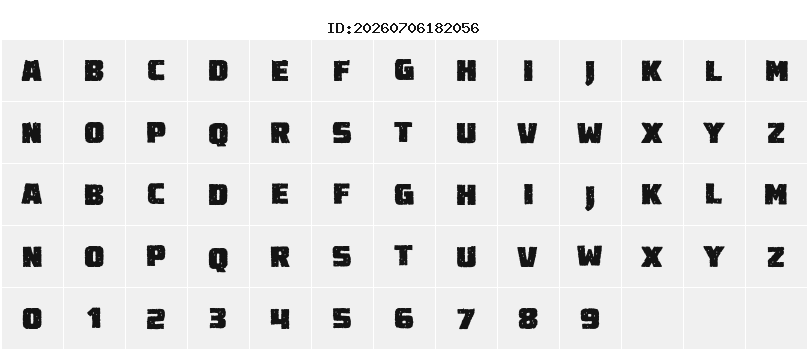
• Font Name: Destroy Earth Rough BB
• Designer: Nate Piekos
• Manufacturer: Nate Piekos. Blambot.com
About Destroy Earth Rough BB.ttf
Destroy Earth Rough BB.ttf is a modern, elegant sans-serif font designed for ultimate readability and visual harmony. Perfect for branding, headlines, web design, and print materials.